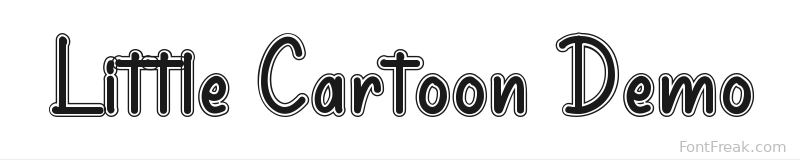
Little Cartoon Demo
About Little Cartoon Demo
The Little Cartoon Demo font by Noah Type is a playful display typeface that captures the essence of whimsy and fun. With its rounded edges and bubbly forms, this font falls into the decorative category, making it perfect for projects that require a lighthearted touch. The stroke weight is consistent, providing a clean and cohesive look, while the subtle contrast between the inner and outer strokes adds a charming depth to each character. The spacing is well-balanced, ensuring legibility even in larger text settings, making it an ideal choice for various applications.
Little Cartoon Demo excels in several creative contexts. Its delightful style makes it a wonderful option for children's book covers, inviting young readers to engage with the content. Additionally, it shines in the realm of birthday party invitations, offering a friendly and approachable aesthetic that resonates with both kids and parents alike. Restaurant menus, especially for family-oriented eateries, can leverage this font to create an inviting atmosphere, while movie posters targeting animated films will benefit from its dynamic and cheerful appearance.
This font primarily appeals to graphic designers, small business owners, and content creators looking to add a unique flair to their projects. Whether you're crafting a logo or designing promotional materials, the Little Cartoon Demo font free download provides a versatile option that stands out in a crowded market. Its distinctive style and approachable nature make it a fantastic choice for anyone seeking to infuse their work with a sense of joy and creativity. With its charming visual characteristics, this font is sure to leave a lasting impression on your audience, making your designs not only memorable but also engaging.